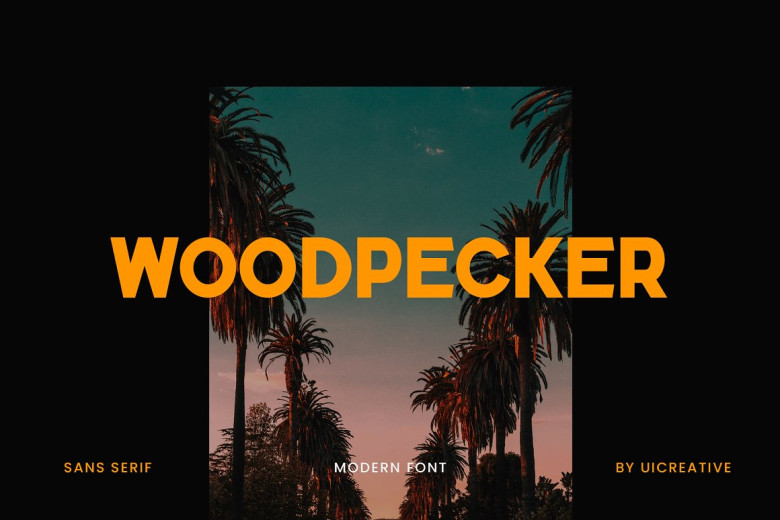
Woodpecker Font
Woodpecker is a modern sans serif font. It feels beautiful, elegant, and modern. This font is perfect for use in all sorts of projects such as signature, stationery, logos, wedding invitations typography quotes on the internet authentic Japanese katakana (that end up looking very much like art); blogs upcoming taste caps from food vendors around town street signs along main highways featuring similar style numbers whose ratio on downstrokes compared with upstrokes varies accordingly to meet road laws implemented last year fashion-related branding and marketing both have those male yet female qualities.
Woodpecker Sans Serif Font